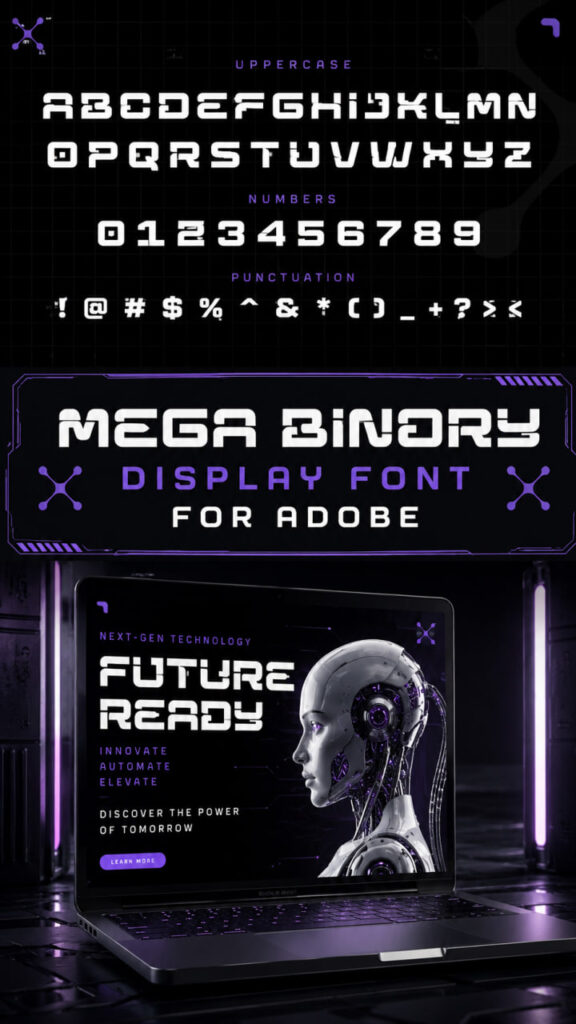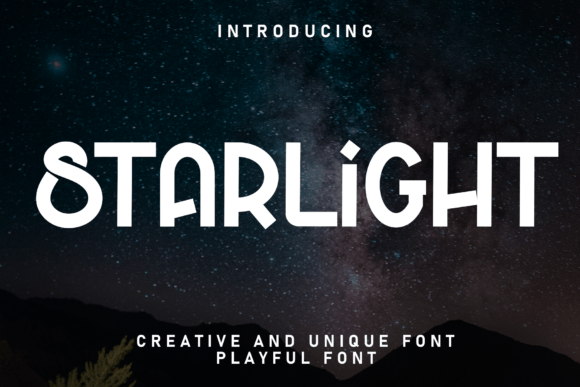
Best 17 Must-Have Display Font Collections for Adobe Projects
Finding the perfect typography is the key to any successful design, which is why I’ve curated this list of 17 Must-Have Display Font Collections for Adobe Projects. Whether you are working in Photoshop, Illustrator, or InDesign, having a versatile library of high-impact typefaces is essential for standing out in today’s visual landscape. In this guide, we will explore a diverse range of styles—from aggressive racing types to elegant wedding serifs—ensuring that you have the right display font ready for any Adobe layout. These 17 handpicked collections are designed to streamline your process and provide the professional edge your projects deserve. Dive in and discover your new favorite fonts!
Vectra Display Font #1
If you are looking for a typeface that pushes the boundaries of modern design, Vectra is a futuristic display font with a truly unique concept. Designed with minimalist geometric shapes, it invites users to arrange words like a puzzle, creating an interactive and enigmatic visual experience. It is the perfect display font for Adobe users who want to build an exclusive impression in tech, gaming, or cyberpunk-themed projects.
This versatile display font is optimized for Adobe Illustrator, Photoshop, and After Effects, ensuring a flawless workflow for motion graphics and complex branding. Designers love Vectra for its:
• Futuristic & Geometric Aesthetic: A perfect fusion of modern minimalism and functional, bold design.
• Tech & Gaming Focus: Ideally suited for esports logos, futuristic UI/UX, and startup corporate identities.
• Y2K & Neo-Brutalist Vibes: A nostalgic nod to retro-futurism that fits perfectly with contemporary “impact-driven” projects.
Starlight Display Font #2
If you are seeking a typeface that offers an extraordinary creative experience, Starlight is a stunning display font designed to leave a lasting impression. Combining the charm of elegant handwriting with the bold presence of a professional display face, this font is perfect for creators who need their text to stand out. It is a highly reliable display font for Adobe users, offering seamless integration for both high-end print and digital media.
This display font is specifically optimized for Adobe Illustrator, Photoshop, and InDesign, making it an essential tool for sophisticated design work. Its versatile nature makes it the ideal choice for:
• Social Media & Branding: Crafting standout logos, photography watermarks, and engaging social media headers.
• Event Stationery: Designing premium wedding invitations and personalized stationery with a touch of class.
• Product Marketing: Creating high-impact product packaging, labels, and advertisements.
• Decorative Displays: Perfect for wall art and large-scale displays that require a “tasty” handwritten aesthetic.
Mega Binory Display Font #3
If you are looking to inject a bold, high-tech aesthetic into your work, Mega Binory is a cutting-edge display font inspired by digital interfaces and cyberpunk visuals. With its sleek geometric structure and sharp edges, it is the ultimate display font for Adobe designers working on sci-fi themes, advanced technology projects, or modern digital branding.
This powerful display font is optimized for Adobe Illustrator, Photoshop, and InDesign, providing the visual precision needed for high-stakes innovation. It is an ideal choice for:
• Gaming & Esports: Perfect for high-energy logos, gaming UI/UX, and professional esports branding.
• Media Production: Create striking movie titles, futuristic posters, and immersive YouTube thumbnails.
• Tech Startups: Communicate speed and digital precision through clean, forward-thinking corporate identities.
• Modern Graphics: Adds a professional edge to album covers and technology-themed social media content.
Nightmare Display Font #4
If you are looking to add a touch of mystery or bold character to your work, Nightmare is a compelling display font designed to provide an extraordinary creative experience. Despite its name, this font offers a sophisticated handwritten style that is perfect for creators who want to balance edge with elegance. It serves as a highly adaptable display font for Adobe users, ensuring your headers and titles carry a unique, handcrafted personality.